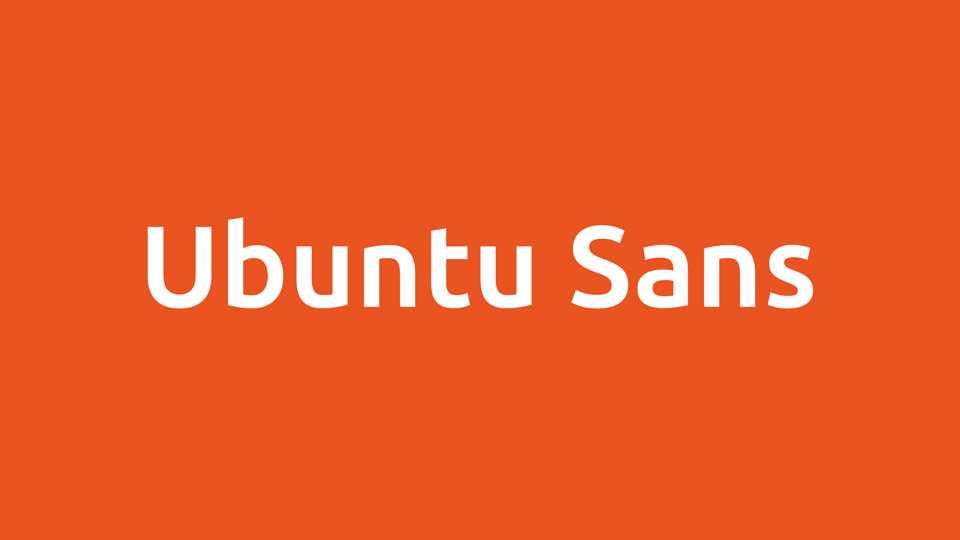
Download Ubuntu Sans font, a clean and versatile sans serif typeface that reflects the essence of the Ubuntu brand. Developed specifically for the Ubuntu operating system, this typeface is an embodiment of clarity, simplicity, and modernity.
Designer: Canonical